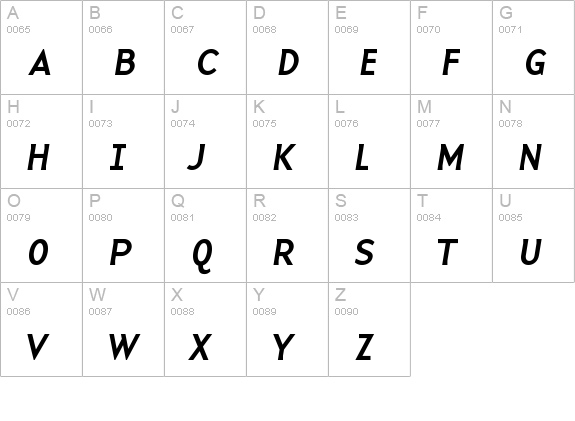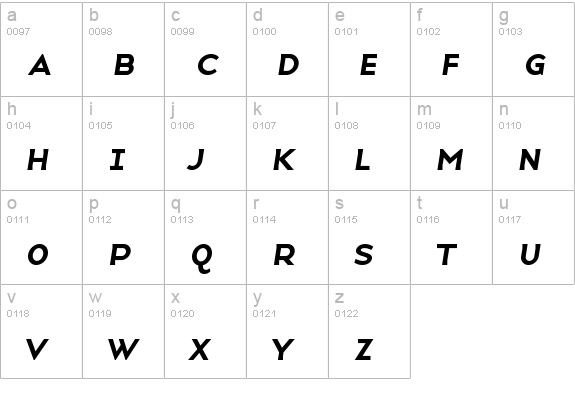
BaseNineSCI Font Details
BaseNineSCI font is a modern and sleek typeface that brings a futuristic touch to your designs. With its clean lines and sharp edges, this font is perfect for tech-related projects, sci-fi themes, and digital artwork. The geometric shapes and bold characters make BaseNineSCI stand out and grab attention. The best part is that BaseNineSCI font is completely free for personal and commercial use. You can easily download it at FontsMarket.com and start using it in your projects right away. Whether you're designing a website, creating a poster, or working on a branding project, BaseNineSCI font will add a stylish and contemporary flair to your work. Don't miss out on this opportunity to enhance your designs with the unique look of BaseNineSCI font.